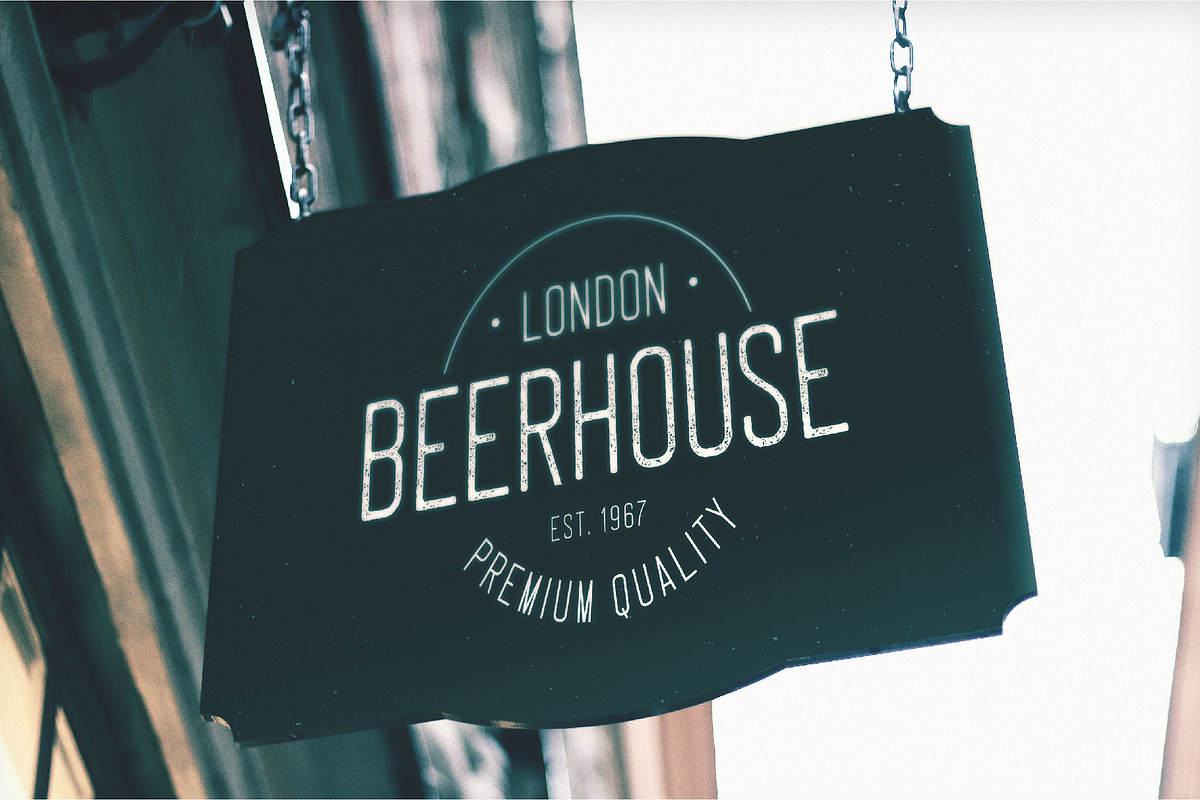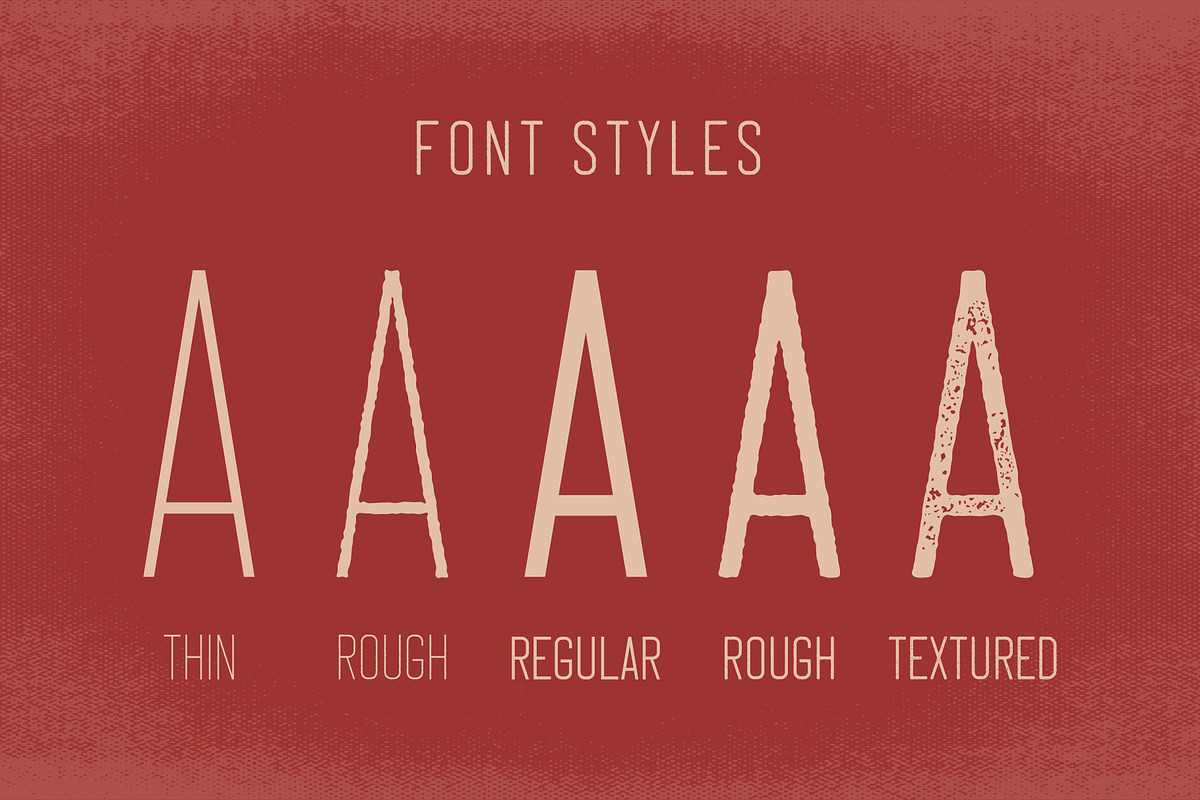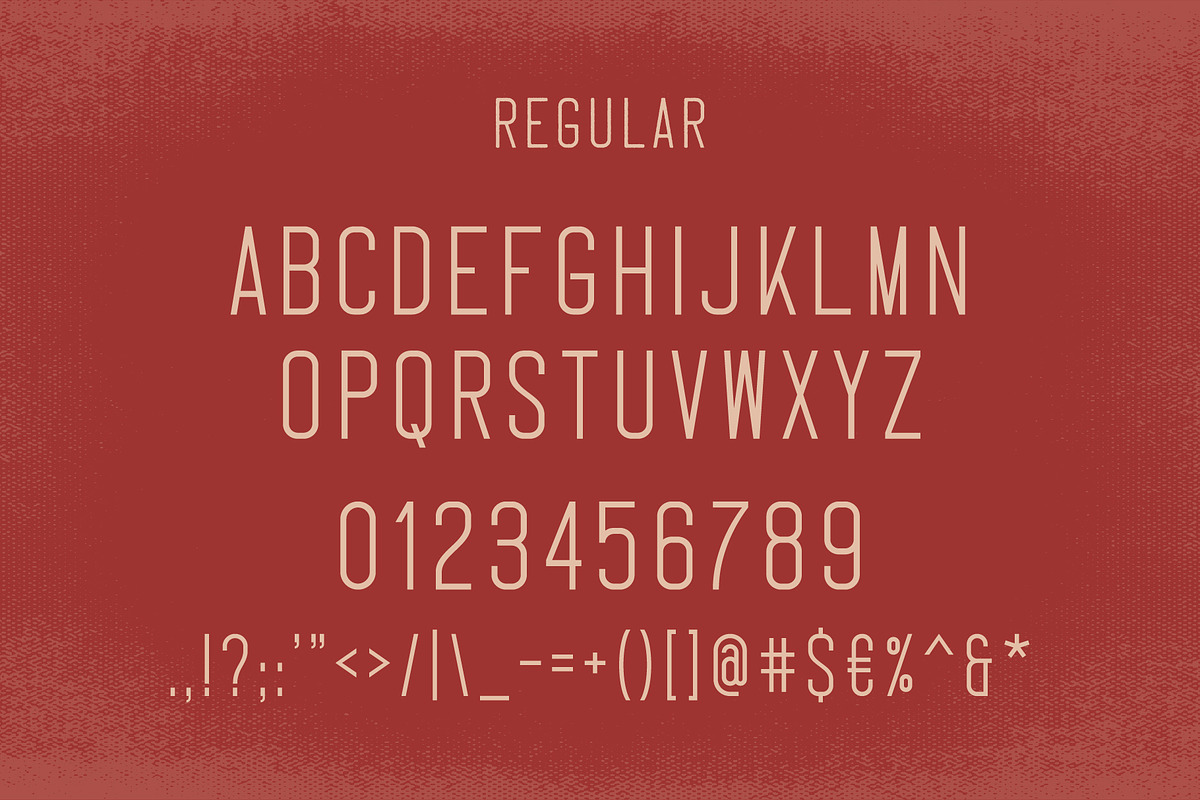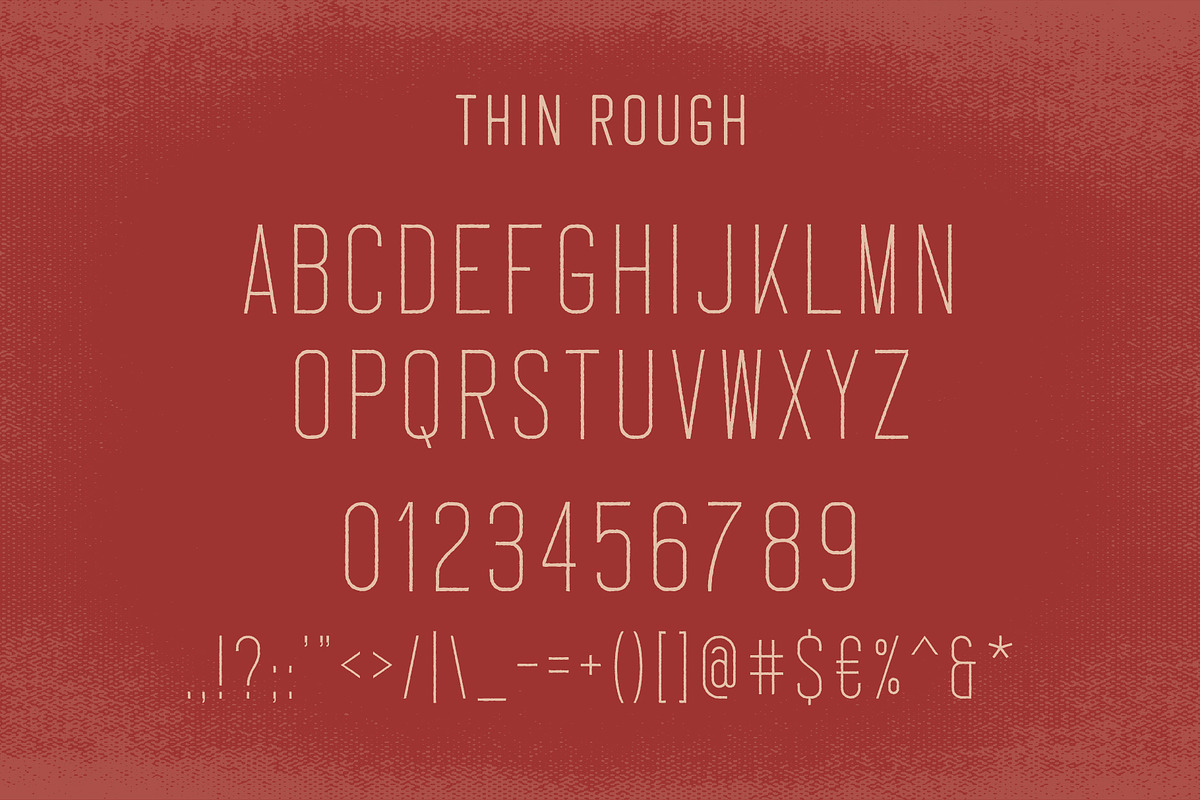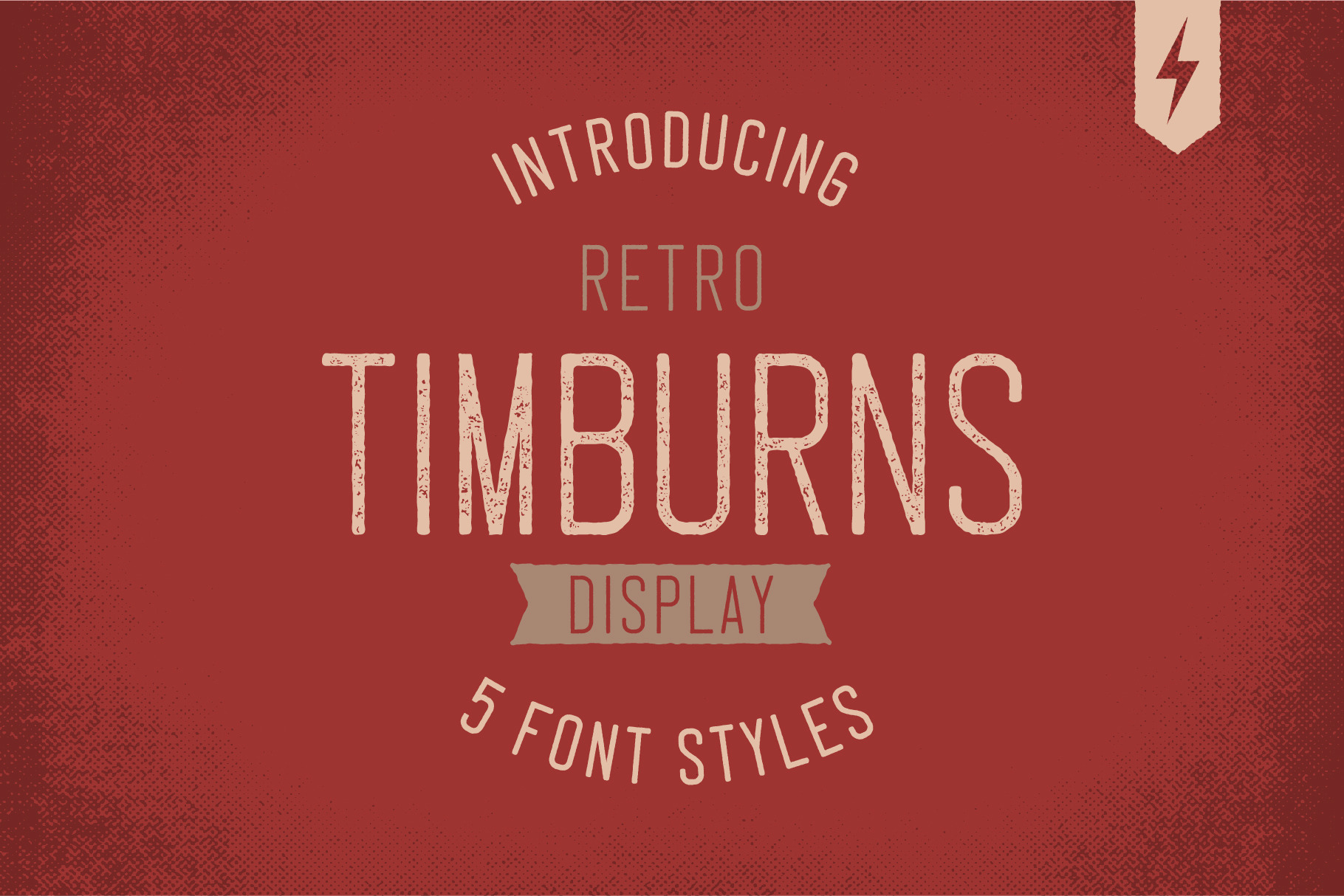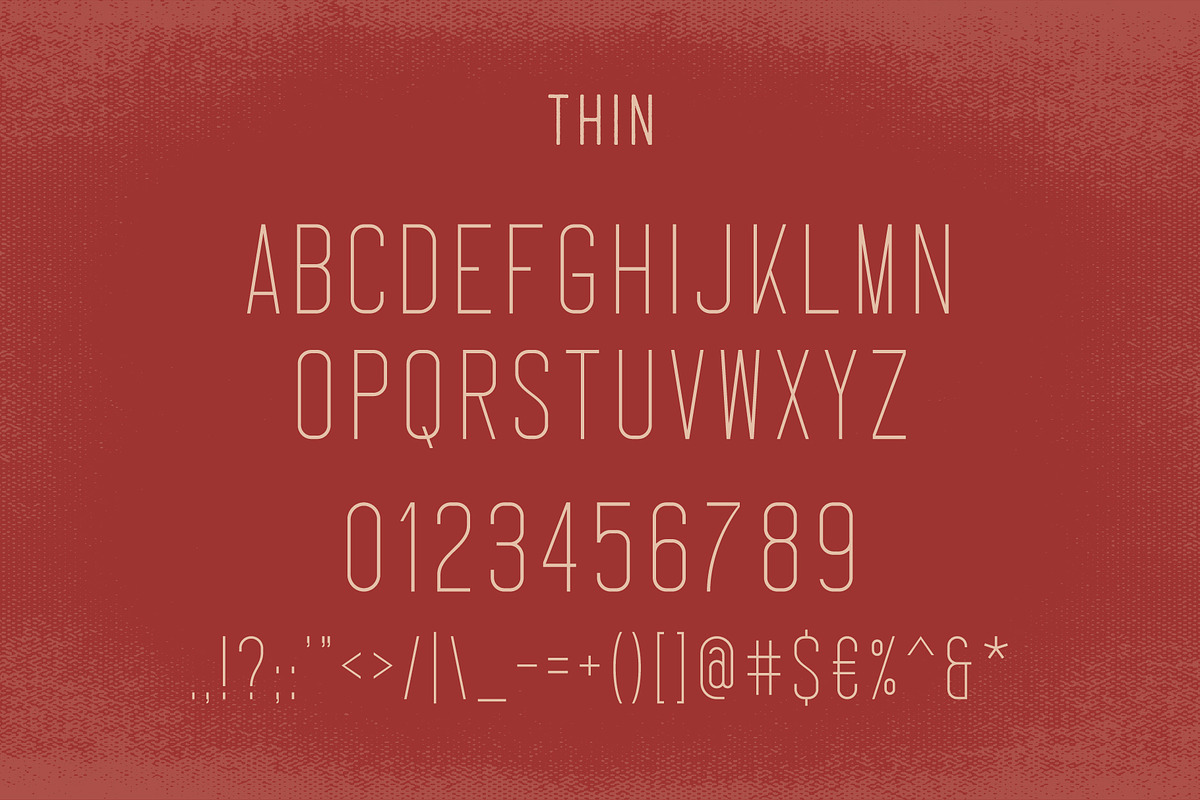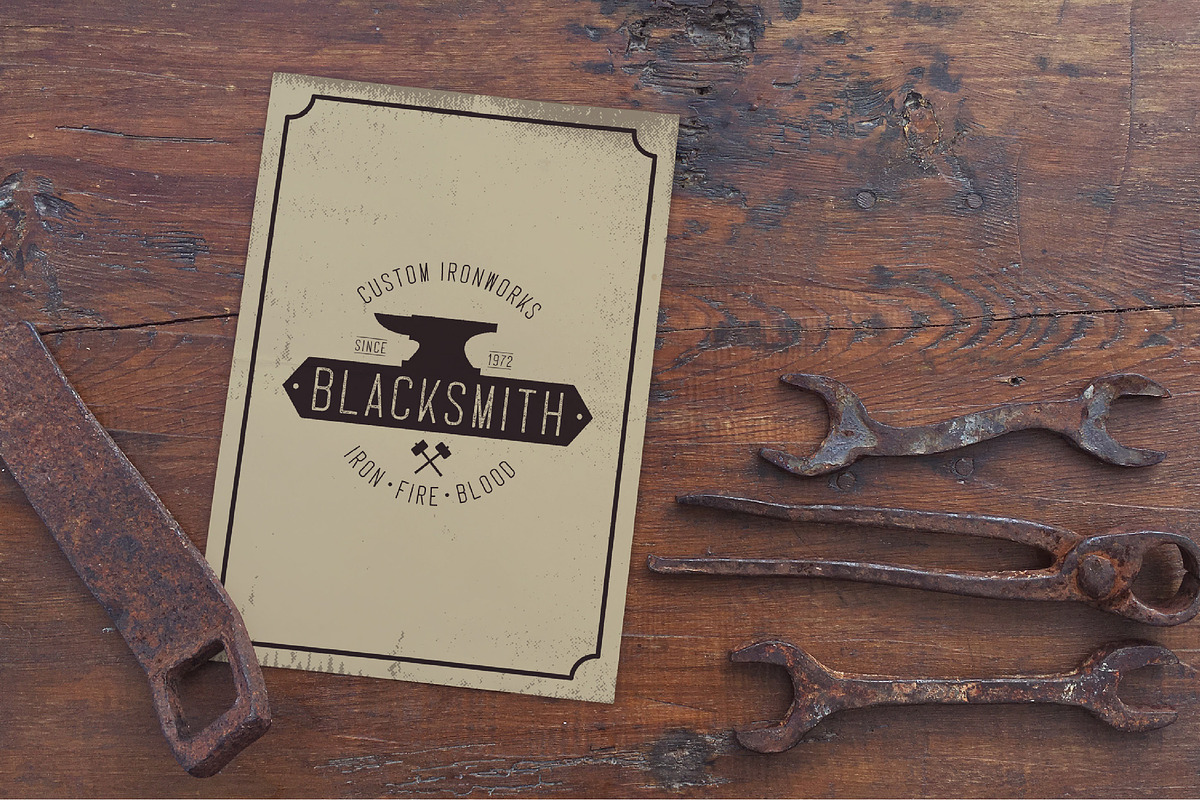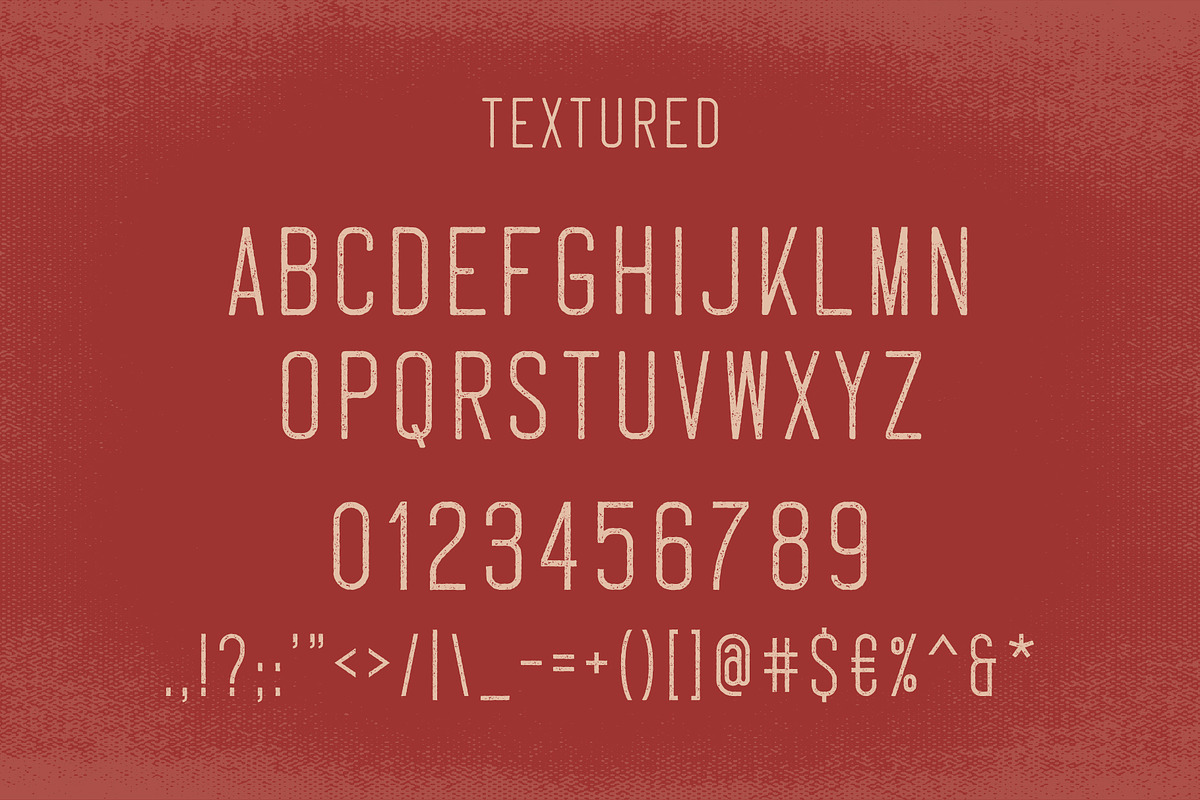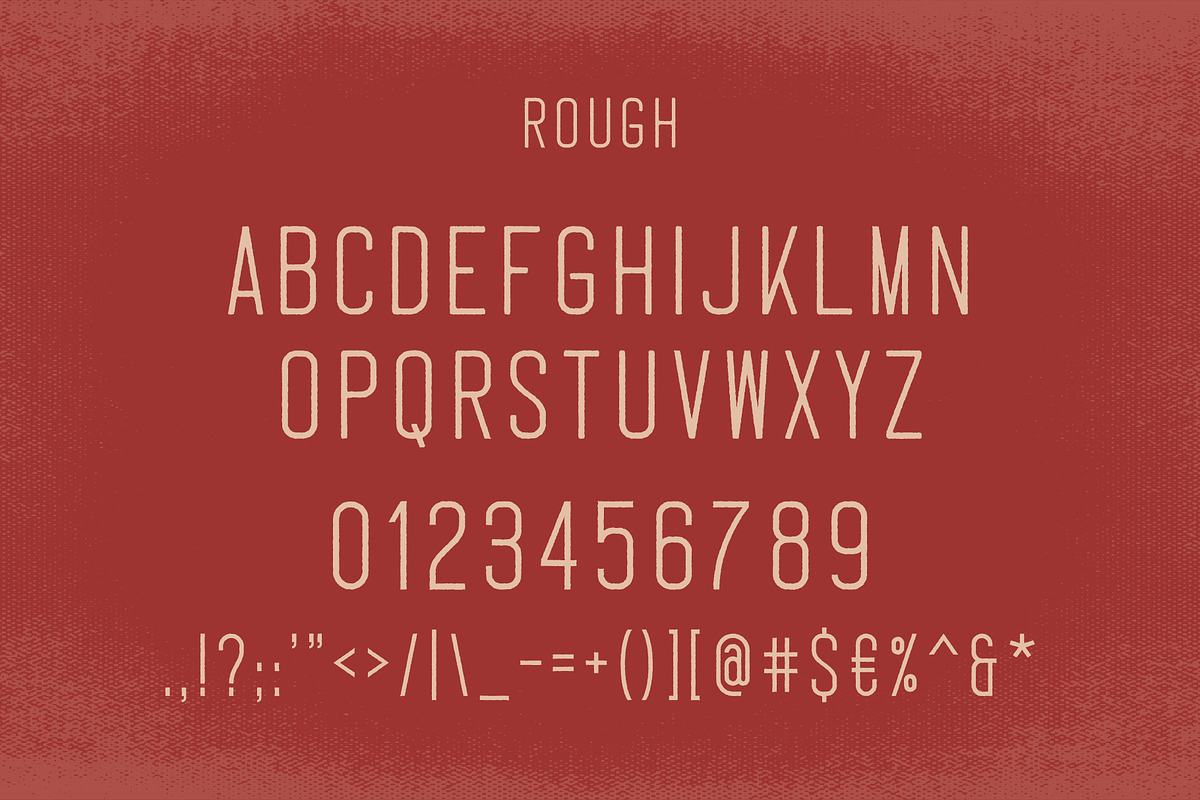
Timburns Typeface
Introducing Timburns Typeface!
Timburns Typeface is a condensed type family that includes 5 retro font styles you can use in your design projects to add a retro feel. Timburns is suitable for titling, headlines, logo design, badges, posters, t-shirt design and many more!
- Uppercase, Numbers and Punctuation Included
- Thin, Thin Rough, Regular, Regular Rough, Regular Textured Styles